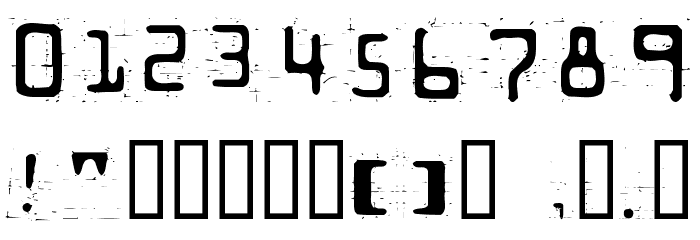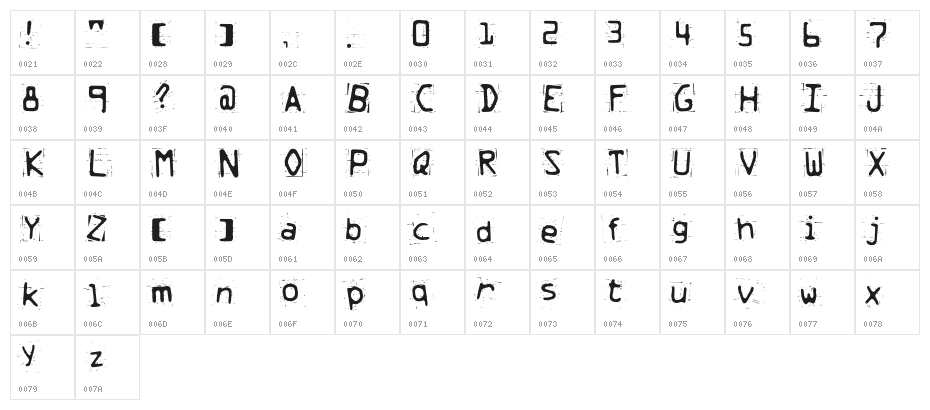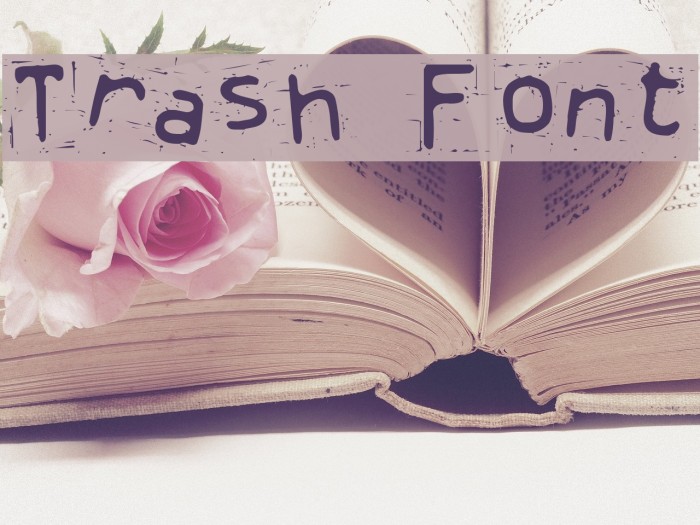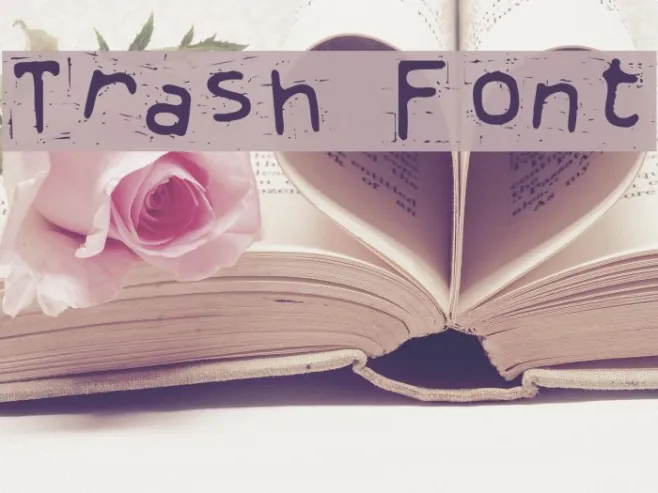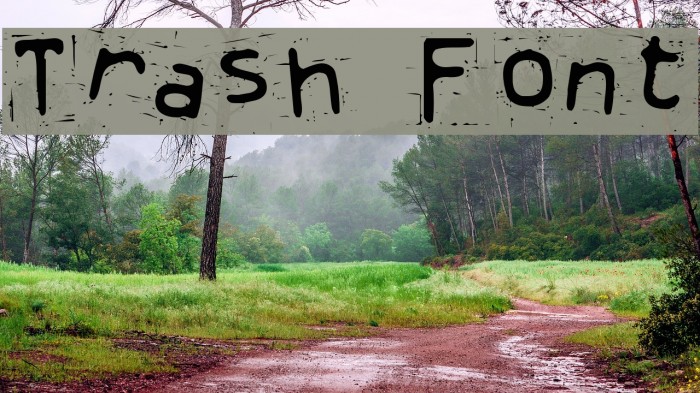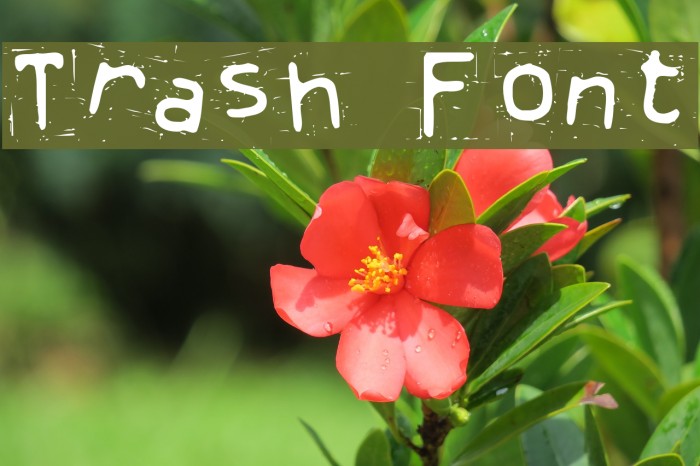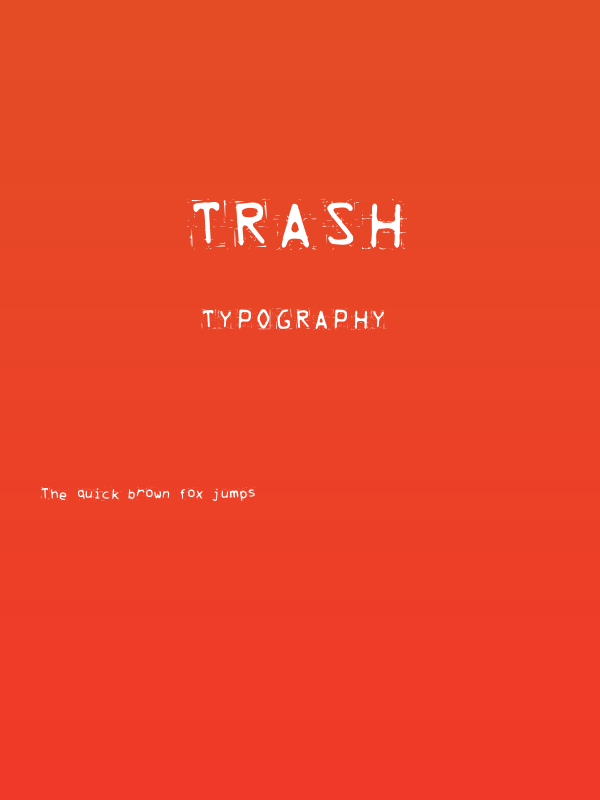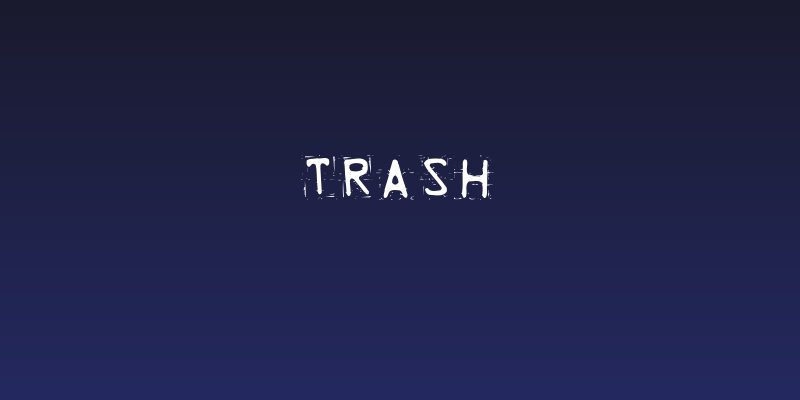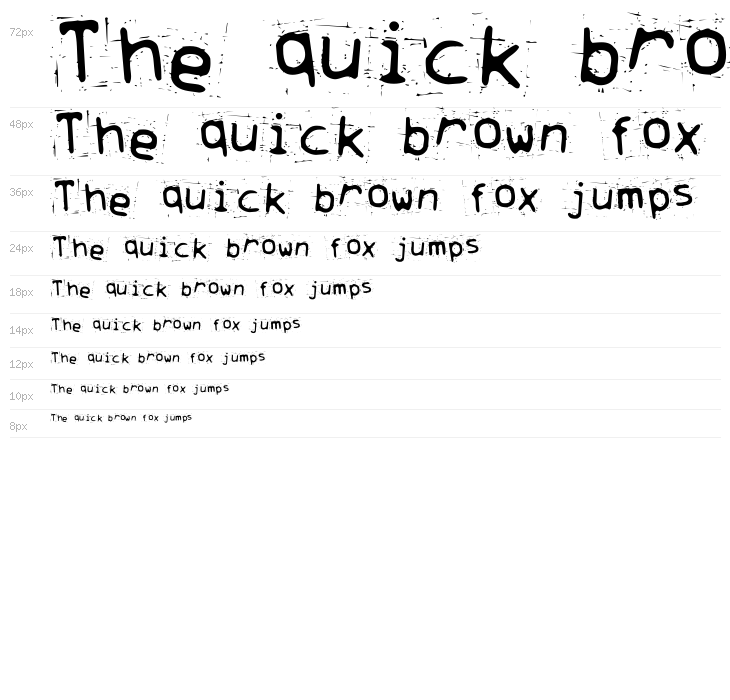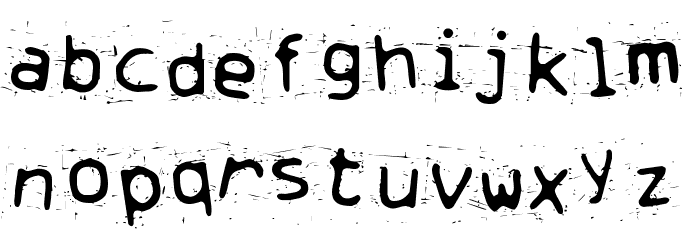
Trash Font
Trash Description
This font features a distressed, grungy style with a hand-drawn appearance. The characters are irregular and uneven, giving it a raw and edgy look. The uppercase and lowercase letters maintain a consistent rough texture, which is also reflected in the numerals and special characters. The font's unique style makes it stand out, with a sense of rebellion and non-conformity. It captures a sense of urban decay and artistic expression, making it suitable for projects that require a bold and unconventional aesthetic.
| Overall Style | Grunge, Urban, Artistic |
| Use Case | Headlines, Posters, Artistic projects |
| Proposed Projects | Ideal for album covers, street art-inspired designs, posters, and edgy branding projects. |